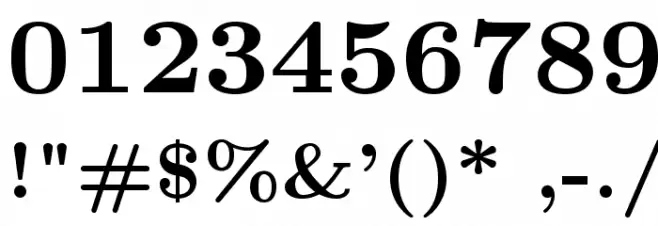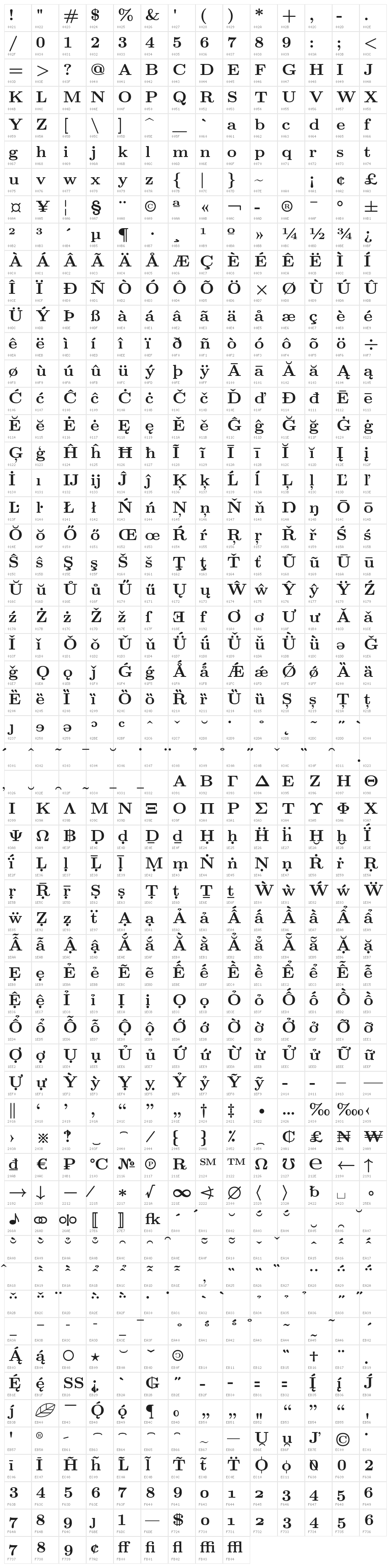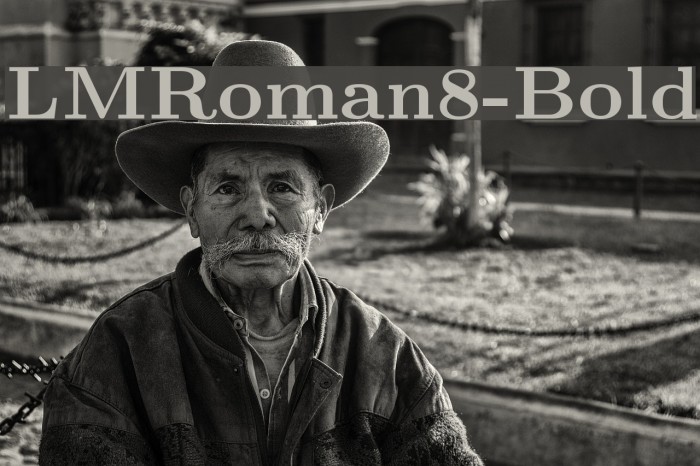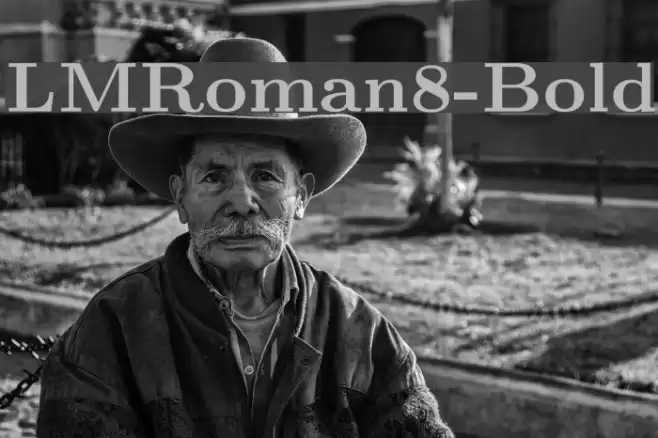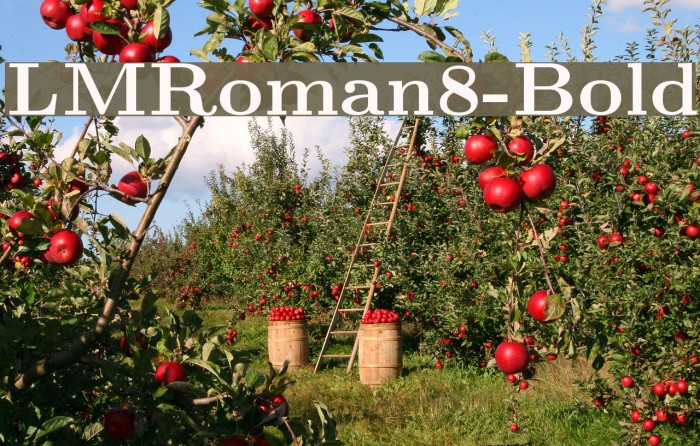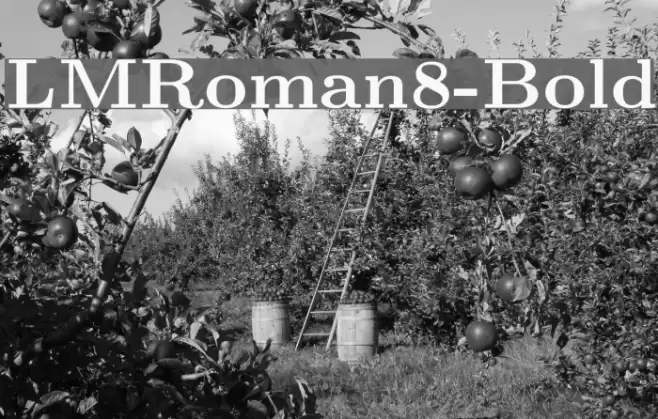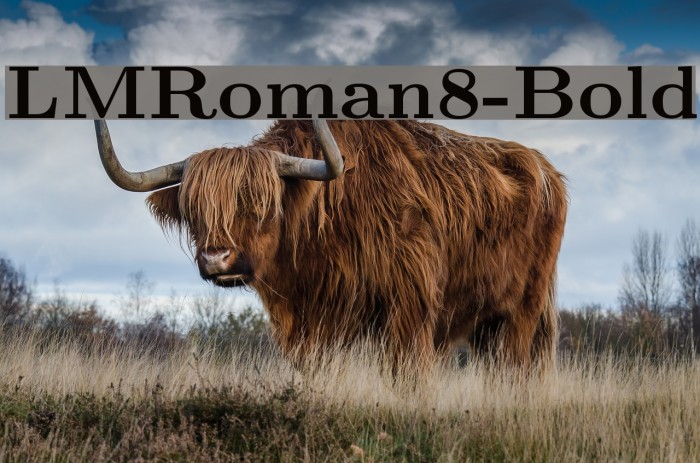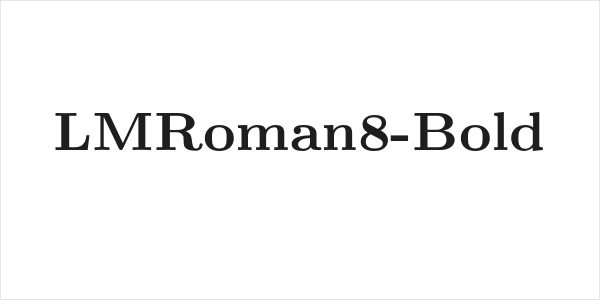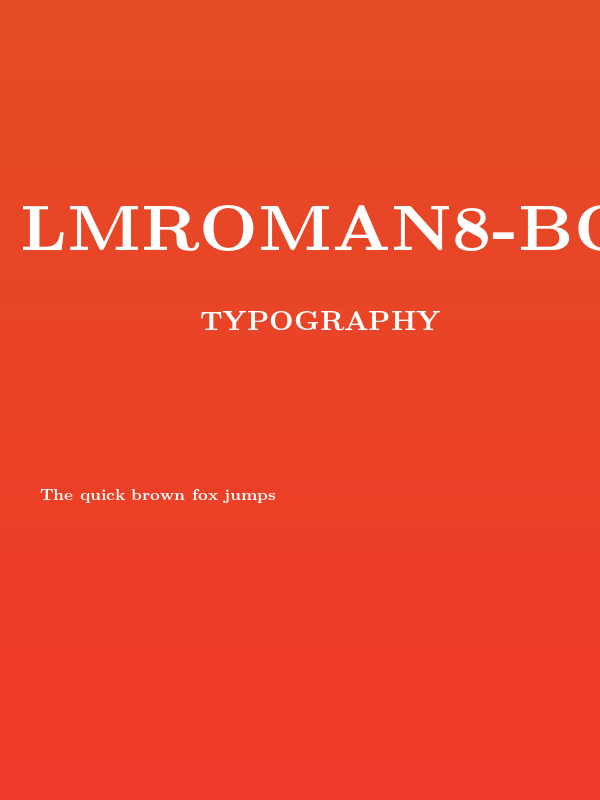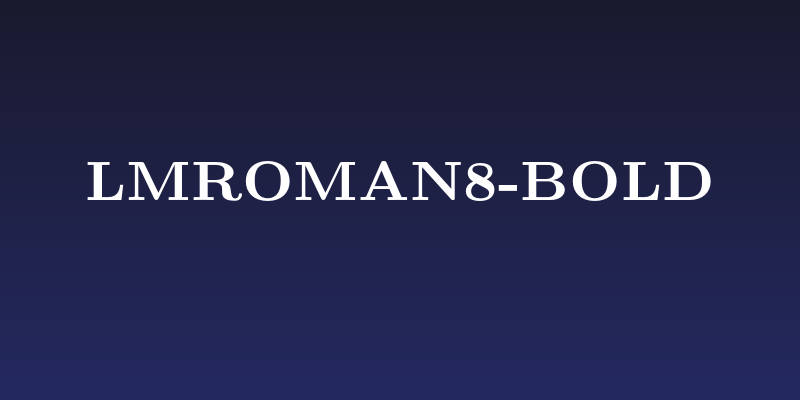
LMRoman8-Bold Font
LMRoman8-Bold Description
This font features a classic serif style with strong, bold strokes and high contrast between thick and thin lines. The serifs are pronounced, giving it a traditional and authoritative appearance. The uppercase letters are well-proportioned and balanced, while the lowercase letters maintain a consistent flow with slightly rounded edges. The numerals are clear and distinct, making them easily readable. Special characters are elegantly designed, complementing the overall aesthetic. This font is suitable for formal and professional use, offering a timeless elegance.